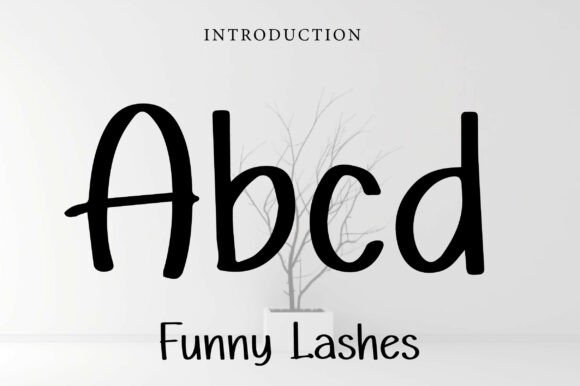
Introducing Funny Lashes: The Playful Display Font That Adds a Wink to Your Designs
Are you tired of using the same old fonts in your creative projects? Look no further than Funny Lashes, a charmingly tall and playful display font that’s sure to add a touch of whimsy to your designs. With its slender, hand-drawn strokes and irregular baseline, this typeface captures a lighthearted and feminine energy that’s perfect for a wide range of applications.
The Perfect Font for Beauty and Beyond
The name “Funny Lashes” hints at its perfect application in the beauty industry, and it’s easy to see why. This font is an exceptional choice for boutique lash studio branding, beauty product packaging, and even children’s apparel. But its versatility extends far beyond the beauty industry, making it a great choice for any project that needs a touch of quirky elegance.
What Makes Funny Lashes So Special?
So what sets Funny Lashes apart from other fonts? Here are just a few of its standout features:
- Slender, hand-drawn strokes: Funny Lashes features delicate, hand-drawn strokes that give it a charmingly human feel.
- Whimsical, irregular baseline: The font’s irregular baseline adds a touch of whimsy and playfulness to your text.
- Lighthearted and feminine energy: Funny Lashes captures a lighthearted and feminine energy that’s perfect for projects that need a touch of personality.
Use Funny Lashes for:
- Boutique lash studio branding: Add a touch of elegance and sophistication to your lash studio’s branding with Funny Lashes.
- Beauty product packaging: Make your beauty products stand out on store shelves with Funny Lashes’ playful and eye-catching font.
- Cheerful lifestyle quotes: Add a touch of whimsy to your lifestyle quotes with Funny Lashes’ charming and feminine font.
- Children’s apparel: Funny Lashes is a great choice for kids’ clothing and accessories, adding a playful touch to your designs.
Why Choose Funny Lashes?
With so many fonts to choose from, why should you choose Funny Lashes? Here are just a few reasons:
- Unique and eye-catching: Funny Lashes is a one-of-a-kind font that’s sure to grab attention.
- Versatile: This font can be used for a wide range of projects, from beauty branding to children’s apparel.
- Easy to read: Despite its playful design, Funny Lashes is easy to read and understand.
Get Ready to Flutter into Your Next Creative Project
Tips for Using Funny Lashes in Your Designs
Here are a few tips for getting the most out of Funny Lashes in your designs:
- Use it as a display font: Funny Lashes is perfect for headlines and titles, but may not be the best choice for body text.
- Experiment with colors and textures: Funny Lashes looks great in a variety of colors and textures, so don’t be afraid to get creative!
- Pair it with other fonts: Try pairing Funny Lashes with other fonts for a unique and eye-catching look.
In conclusion, Funny Lashes is a playful and charming display font that’s perfect for designers and crafters looking to add a touch of personality to their projects. With its slender, hand-drawn strokes and whimsical, irregular baseline, this font captures a lighthearted and feminine energy that’s sure to bring a smile to your audience’s faces. So why wait? Download Funny Lashes today and start creating your next masterpiece!